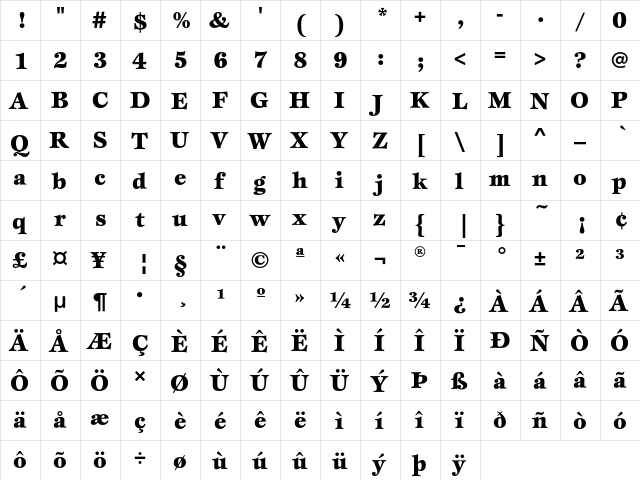
EspritEF Black
Design Context for EspritEF Typeface
EspritEF offers clean, dependable letterforms without strong stylistic allegiance, making it a practical choice for designers who need flexibility.